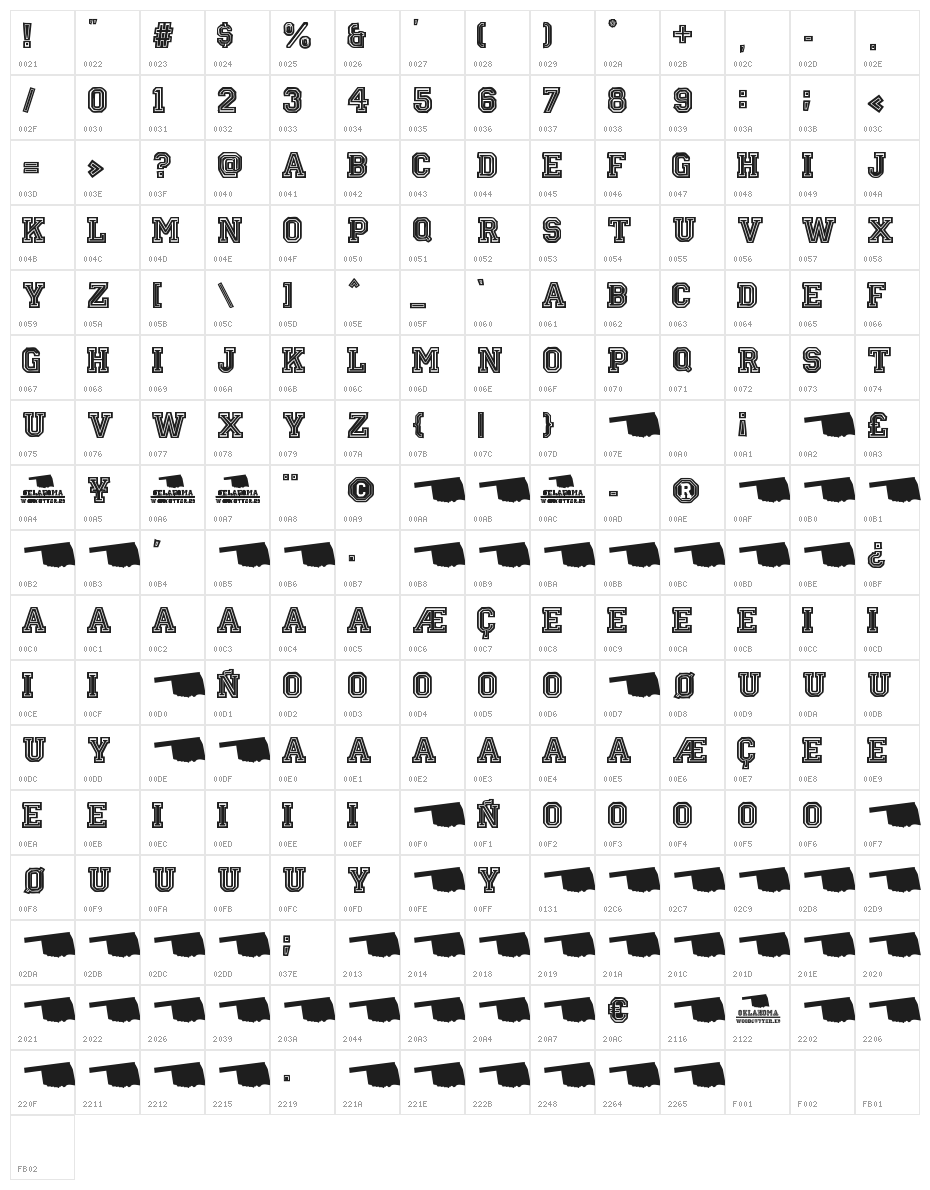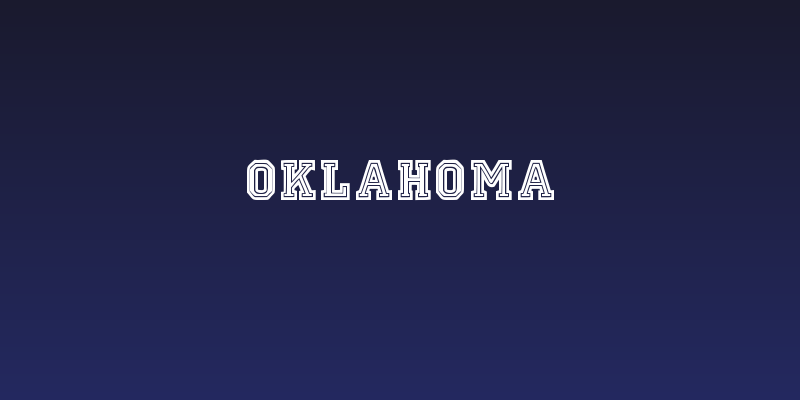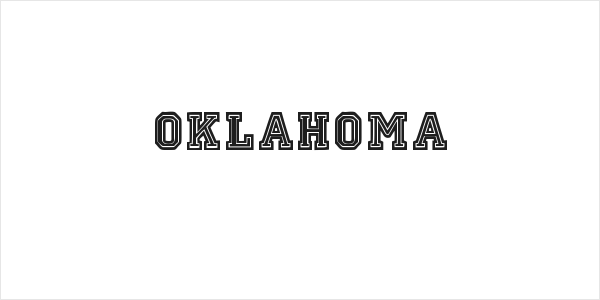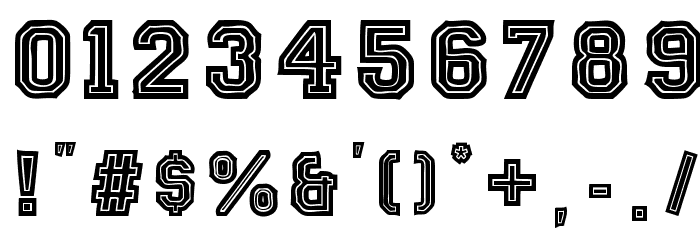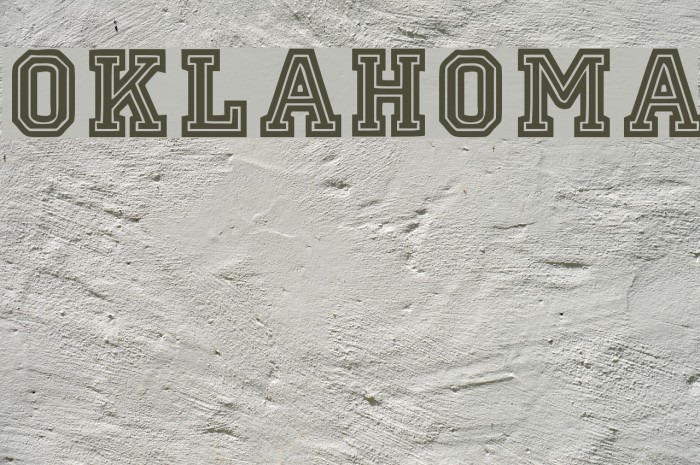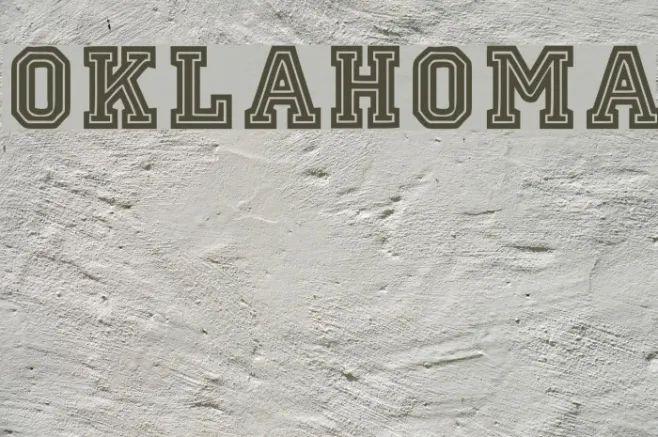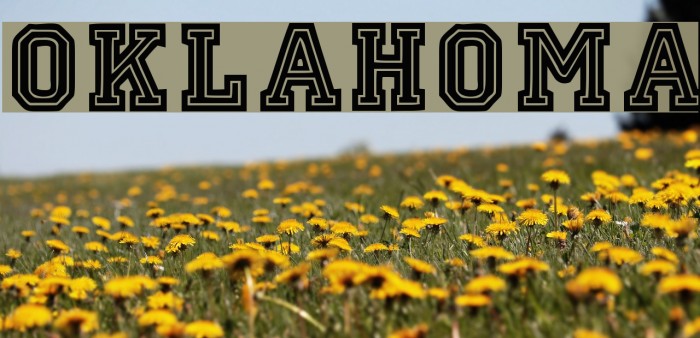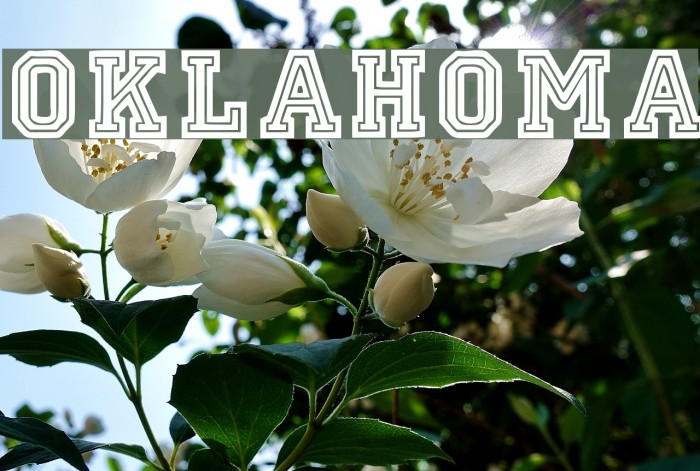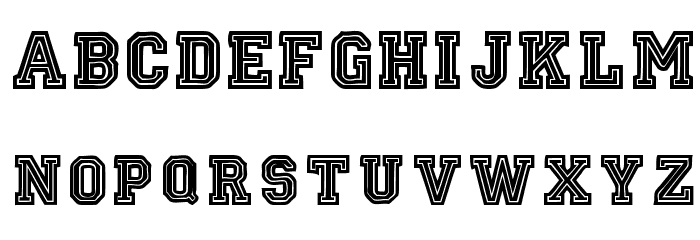
Oklahoma Font
Oklahoma Description
This font features a bold, decorative style with a strong presence, characterized by its double-line outline that adds depth and dimension to each character. The uppercase letters are uniform in height, with a consistent width that gives the font a balanced appearance. The numbers and special characters maintain the same bold outline, ensuring a cohesive look across all elements. The font's design is reminiscent of classic collegiate or sports team lettering, making it ideal for projects that require a bold and impactful statement.
| Proposed Projects | Perfect for sports team logos, event posters, merchandise branding, and any project needing a strong, eye-catching typeface. |